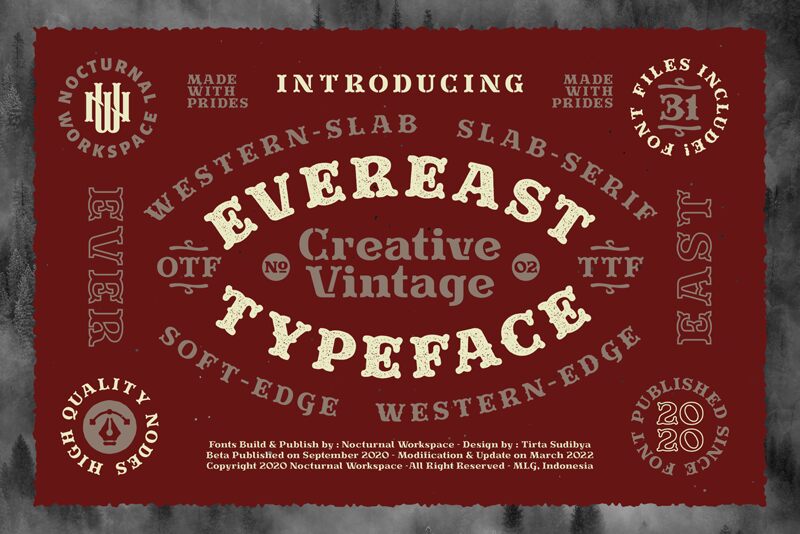
Evereast Slab-Serif, created by Nocturnal Workspace, is the perfect font for captivating display projects that call for a touch of vintage western charm. With its bold weight and semi-expanded width, this font exudes confidence and adds a unique twist to any design.
Whether you're working on branding materials for a whiskey distillery or creating eye-catching posters for a country music festival, Evereast Slab-Serif will bring your project to life with its rustic appeal.
Elevate your designs and make a lasting impression with this beautifully crafted typeface.
Evereast Slab-Serif
Nocturnal Workspace
Farhan Sudibya
previously this font was a demo project. later developed by Typovecto & Illusletra - which is currently renamed Nocturnal Workspace